N BRINGS US TO THE SECOND half of the Alphabet, Letter No. 14. Thanks to all the participants, and welcome to the newcomers!
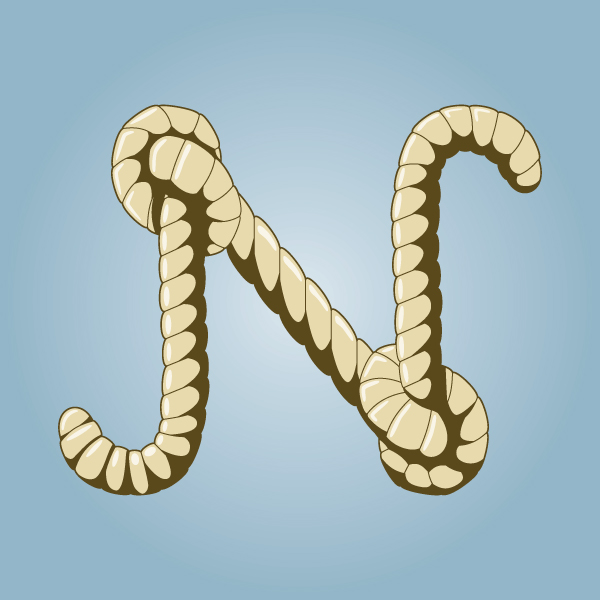
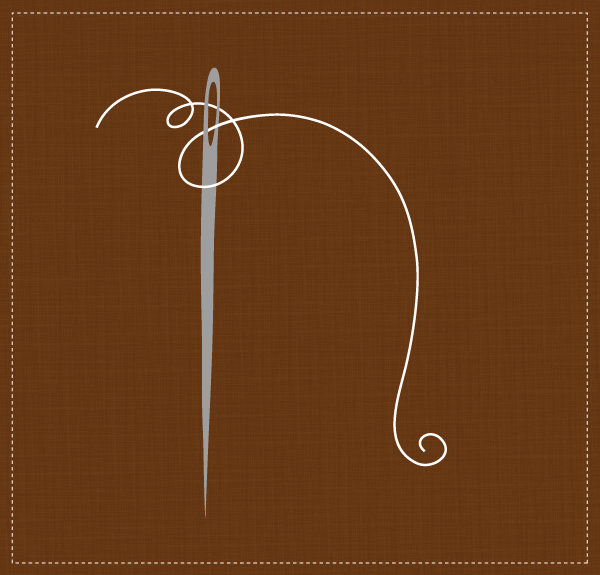
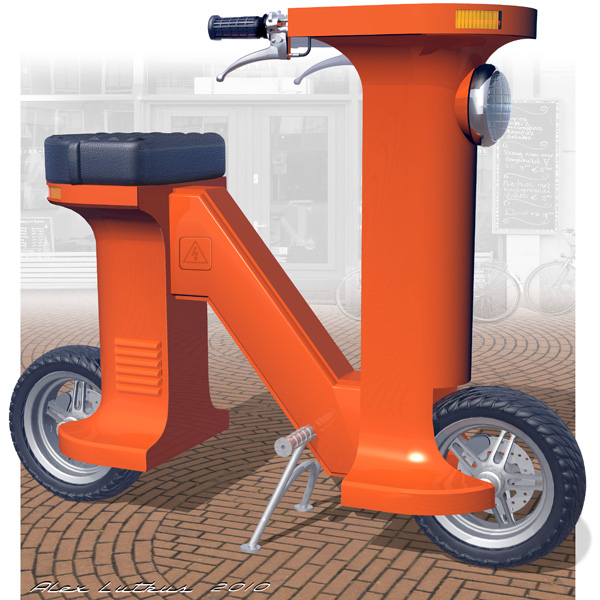
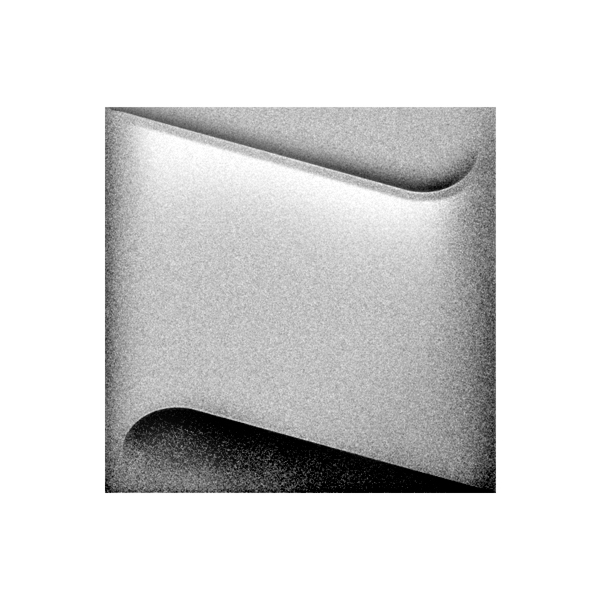
JESSICA FREASE
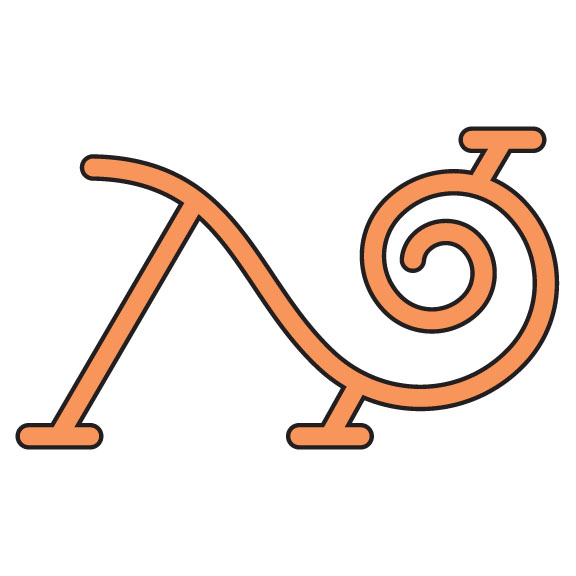
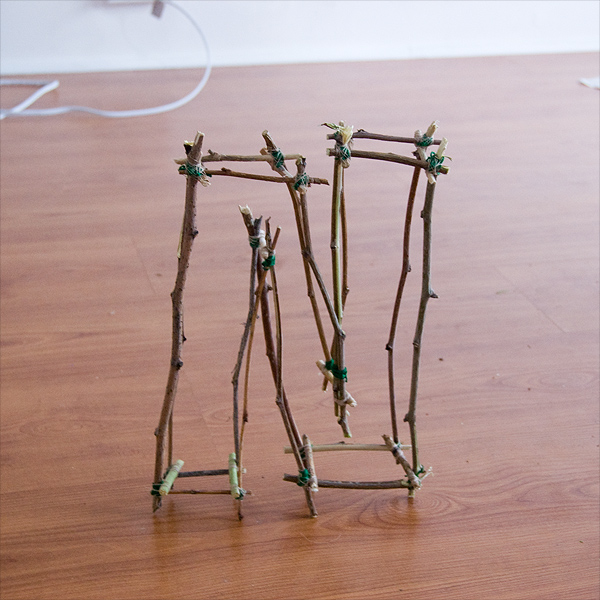
JULES R.
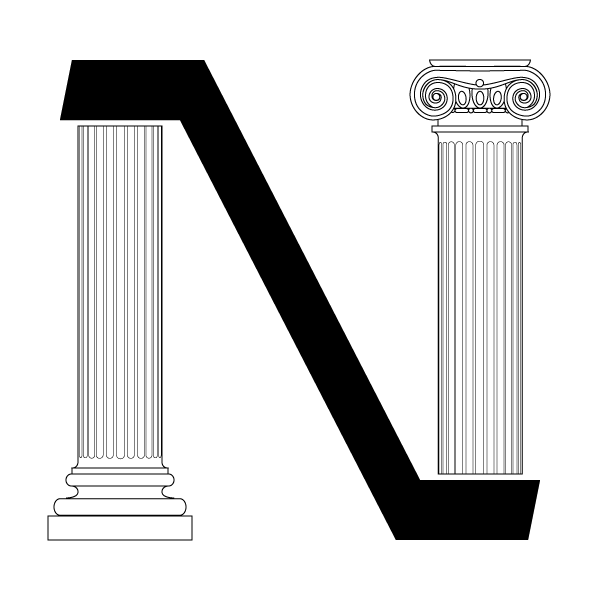
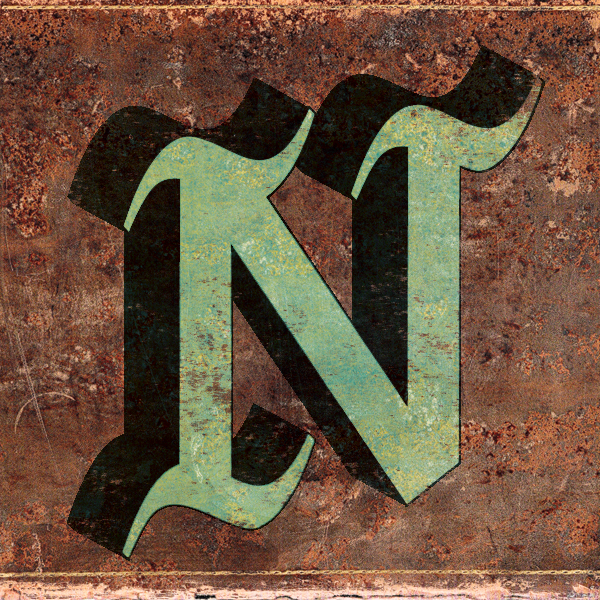
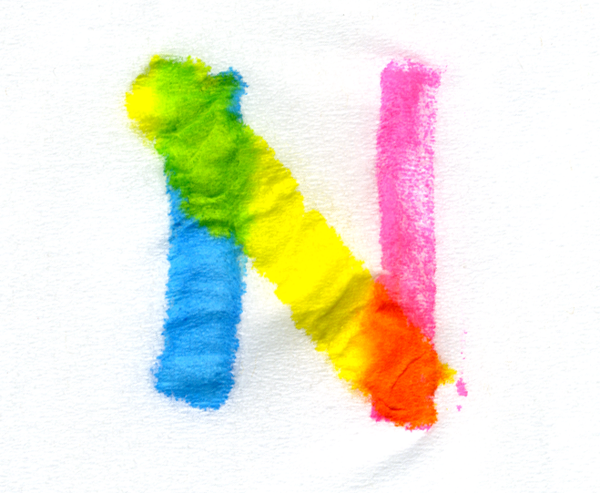
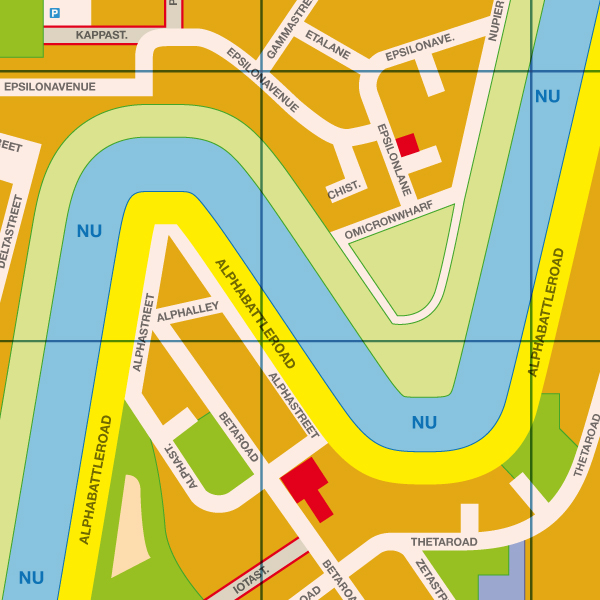
Some real gems!
I think the literal kid one is my favourite! And the Rory Philips one is really cute.
So many great designs.
I’m really digging the dimensional one made out of twigs; and the hands; and the matches; and the subtle elegance of Patrick Drake’s N; and Benoit’s press-style; and Beejay’s classic No. 14…they all inspire and motivate me, and reaffirm my love of creating letters.
ai-yi-yii!!! these are spectacular! i love this series jeff rickard is doing…
I like the one by RYAN FREASE.